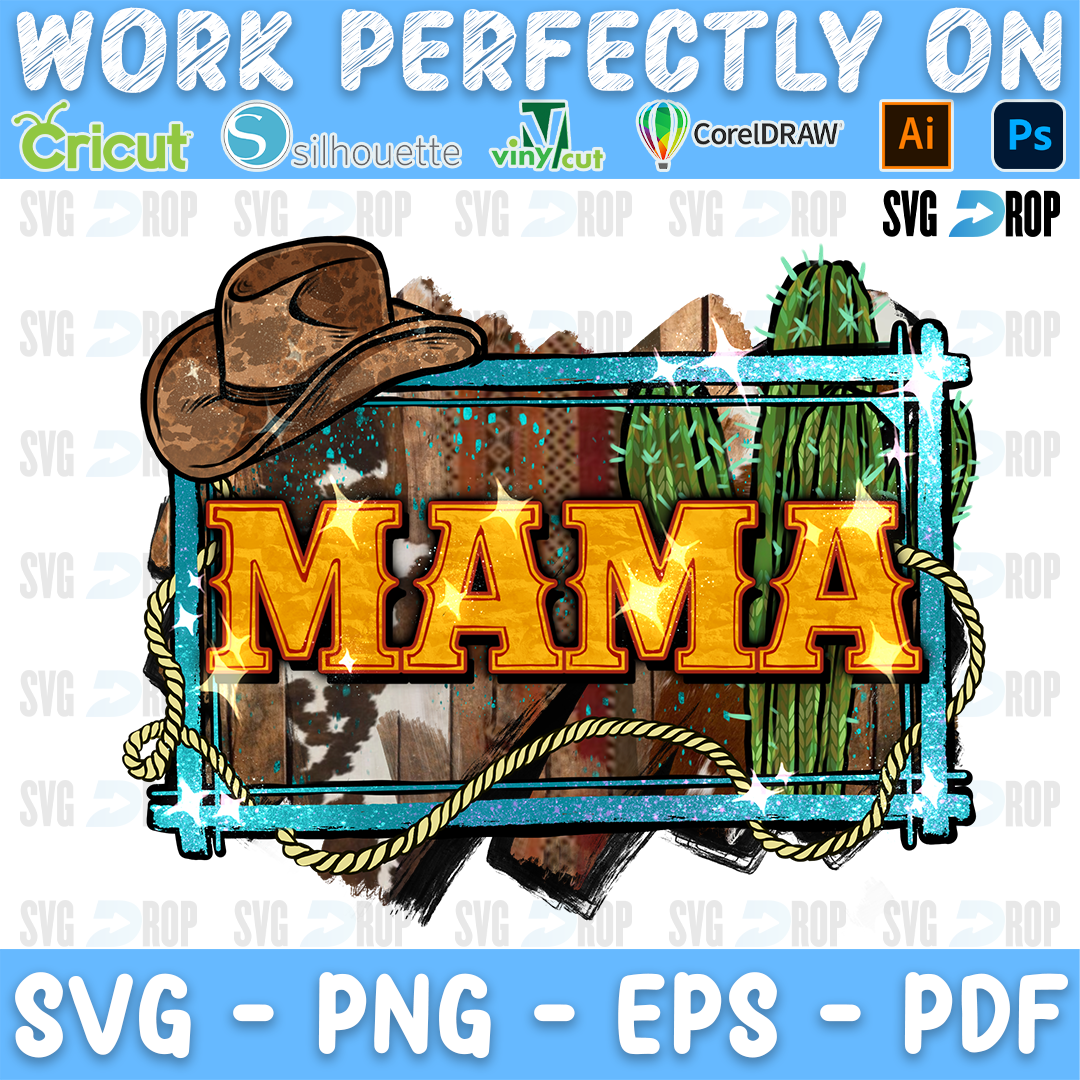
Mama Cowboy Western Font Cactus PNG
✨ Mama lettering in gold marquee letters on a western sign with a cowboy hat, cactus and a rope in a turquoise frame.